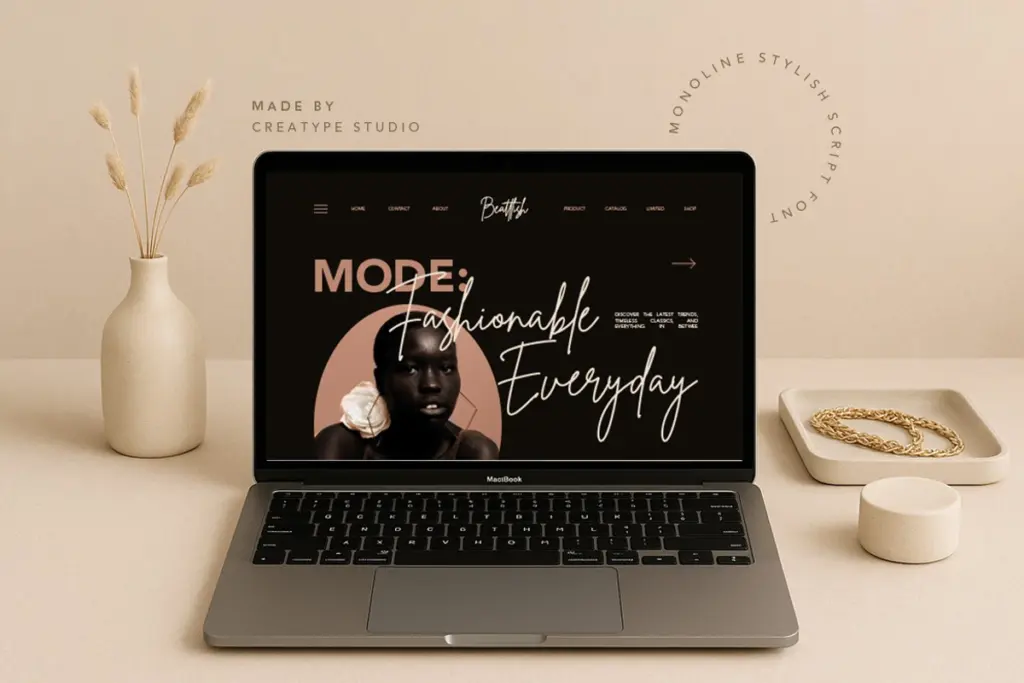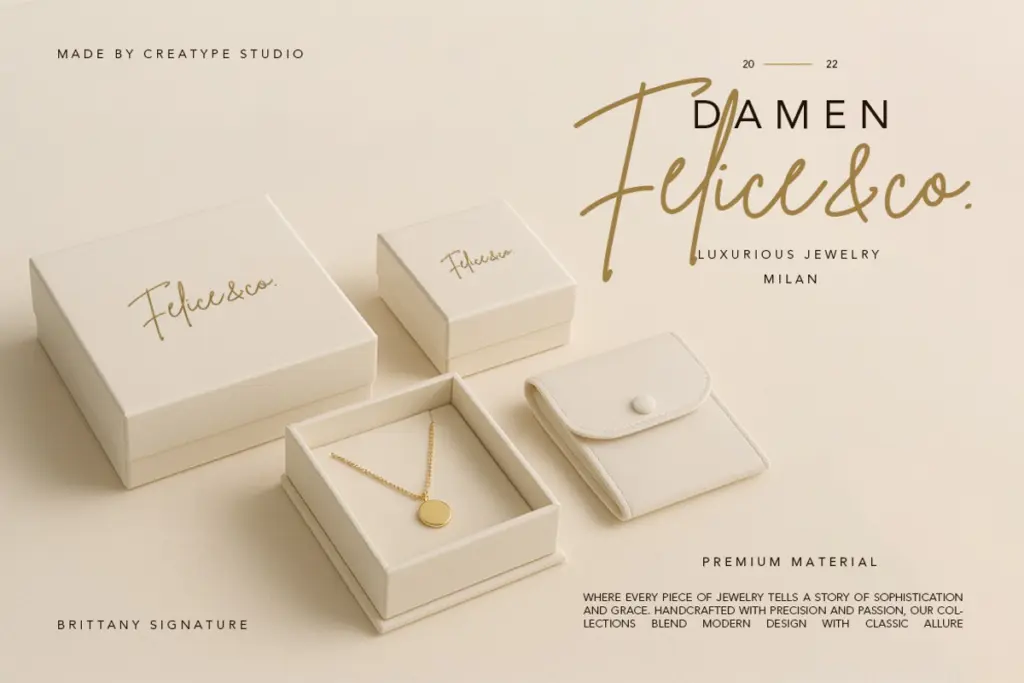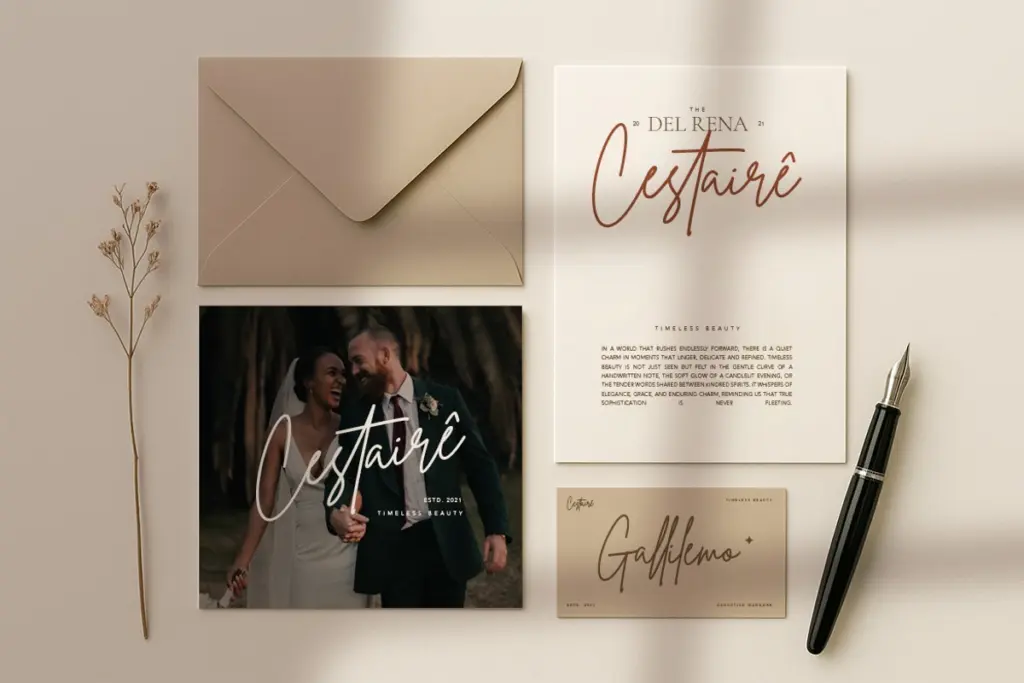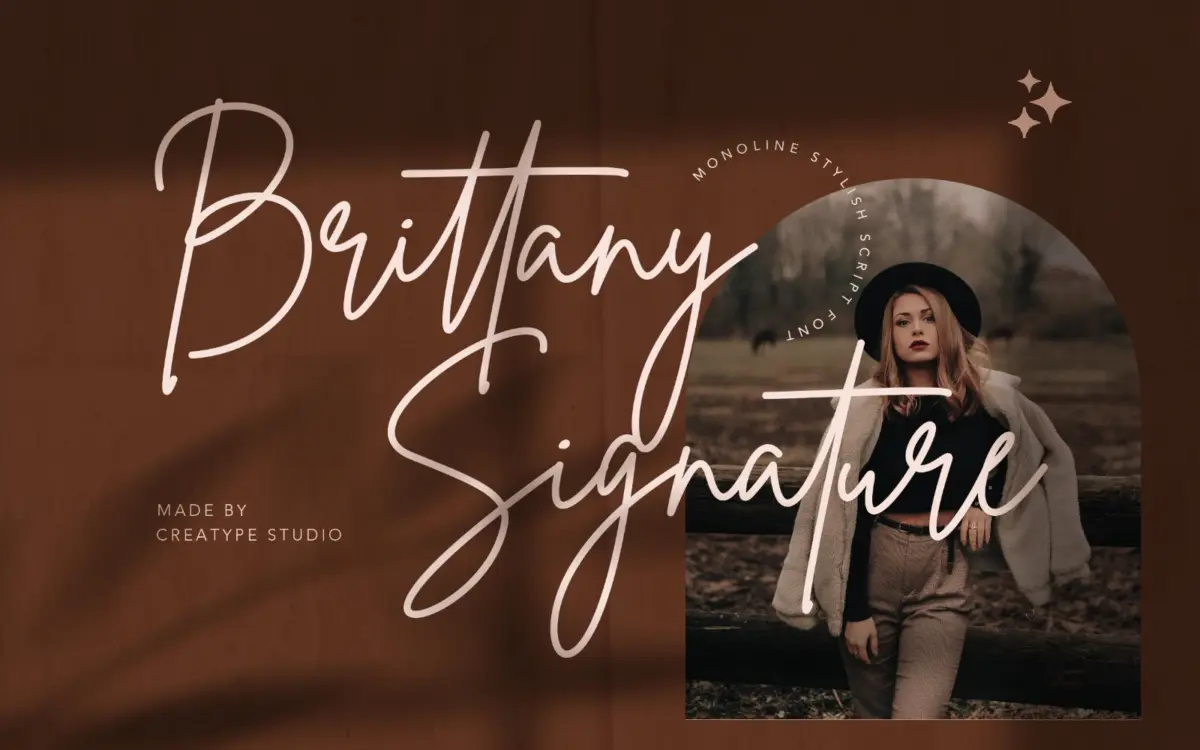
Brittany Signature Script sits in the crowded family of signature-style scripts modelled on quick pen strokes rather than formal calligraphy. The letters lean forward with an inky, connected flow, and the joins between characters are tight, which gives the face its signature feel rather than a copperplate one. Contrast is modest — this isn’t a pointed-pen script with dramatic thicks and thins, it’s closer to a felt-tip or brush signature, with strokes that stay fairly consistent in weight and swing loosely through the baseline.
The curves are the selling point here. Ascenders and descenders loop generously, and there’s a sense of momentum carried from one letter into the next, as if the whole word was written in one pass. That’s convincing at display sizes but it also means the design leans hard on a handful of showy characters — capital letters in particular carry big, decorative flourishes that dominate whatever word they start.
The font includes ligatures, which matter more here than in most scripts because the connecting strokes are part of the letter design rather than an afterthought — without them, certain pairings would collide or leave awkward gaps. PUA encoding means the alternates and ligatures are reachable without a glyph panel, which is worth knowing if you’re working in Word or another app without OpenType feature support.
Multilingual support covers a reasonable spread of Western European languages, so accented characters in French, German, Portuguese and similar languages are accounted for rather than bolted on. Standard punctuation and numerals are present, though as with most signature scripts, numerals read as the weakest part of the set — scripts built for flowing words tend to make stiffer digits, and this one is no exception.
This is a font for a single word or a short phrase set large: a logotype, a name on a wedding invitation, a signature on packaging, a watermark. It’s built to be looked at, not read in bulk. Set it below about 24 points and the joins start to clot, the loops lose their shape, and the whole thing turns muddy — this is not a script for body copy, captions, or anything with more than a few words in it.
Where it earns its keep is exactly where the seller points: branding elements that need a personal, handwritten mark — a founder’s name, a product tagline, an invitation’s opening line. Pair it with a plain sans or slab for supporting text, since the script itself won’t do any of the heavy lifting for legibility. Given how many signature scripts are already on the market with this same inky, looping formula, its distinctiveness comes down to whether the specific curve of its swashes fits your project, more than any structural innovation.
- Fluid, connected joins give short words a genuine one-stroke signature feel
- Ligatures and PUA encoding make the connecting strokes usable without OpenType-savvy software
- Multilingual accent support covers most Western European languages out of the box
- Loses clarity fast below display sizes, so it's unsuitable for anything but short phrases
- Numerals and some capitals feel stiff next to the fluidity of the lowercase script
Brittany Signature Script does one job well: a short, showy signature mark for branding or invitations. It's a competent entry in an overcrowded category rather than a standout, and it needs generous size and short words to look its best.